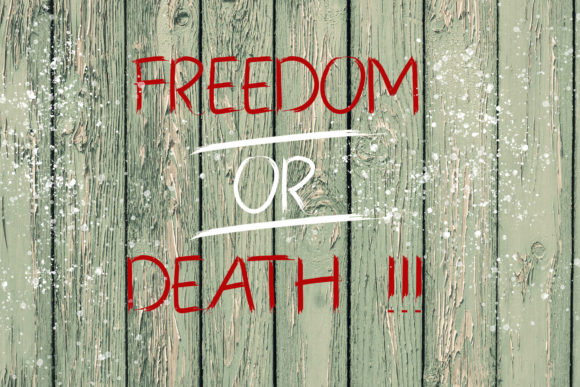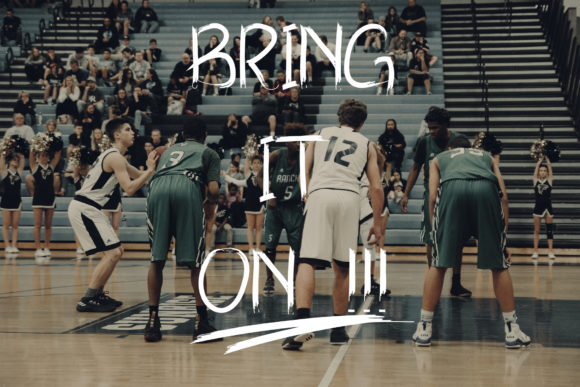
Das Pattern Font
About Das Pattern Font
The Das Pattern is an amazing brush typeface. It was handmade and will add a natural touch to your designs.
It’s perfect for logos, branding, clothing, posters, and much more!